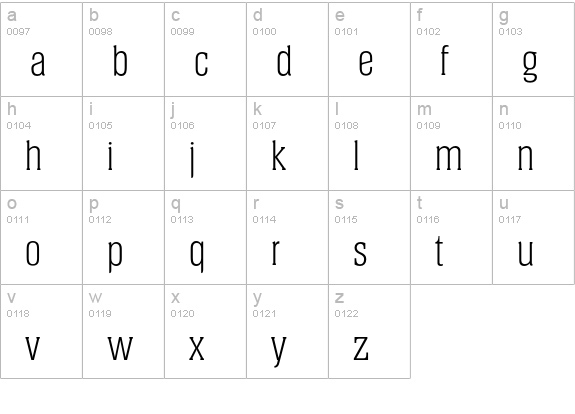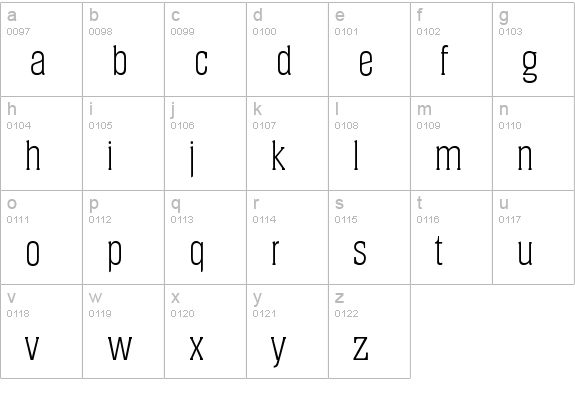
Helium-Light is a refined, elegant variant in the Helium typeface family \xE2\x80\x94 well suited to elegant body text, refined sub-headings, and luxury branding.
Helium-Light font is a breath of fresh air in the world of typography. With its delicate and weightless appearance, this font is perfect for adding a touch of elegance and sophistication to any design project. The gracefully curved letterforms and slender strokes create a sense of lightness and fluidity, making it ideal for both display and body text. But what truly sets Helium-Light font apart is its accessibility. It is not only visually captivating but also freely available to download at FontsMarket.com. Yes, you read that right, this font can be yours without spending a dime. Whether you are a professional designer, a creative hobbyist, or simply someone looking to enhance their visual creations, Helium-Light font is a valuable asset that won't cost you a penny. Embrace the freedom of expression with Helium-Light font as it effortlessly lifts your designs to new heights. Its versatility allows it to shine in various applications, from branding and packaging to posters and invitations. The airy nature of this font brings a sense of lightness and openness to your projects, creating an inviting and modern aesthetic. With its generous x-height and well-balanced proportions, Helium-Light font ensures legibility even at smaller sizes, making it a reliable choice for body text in magazines, books, and websites. Its clean and minimalistic design also makes it a fantastic companion for headlines and titles, adding a touch of sophistication and refinement. So why wait? Don't miss out on this opportunity to elevate your designs with the captivating Helium-Light font. Visit FontsMarket.com today and freely download this font to unlock a world of creativity and possibilities. Let Helium-Light font be the helium that lifts your designs to new heights.